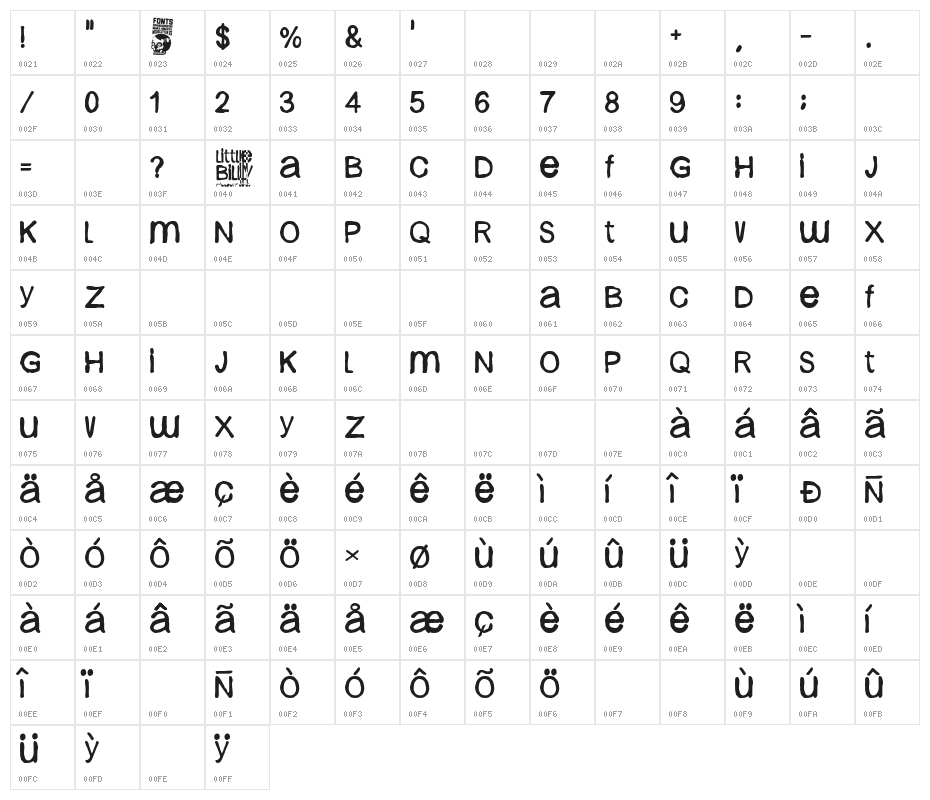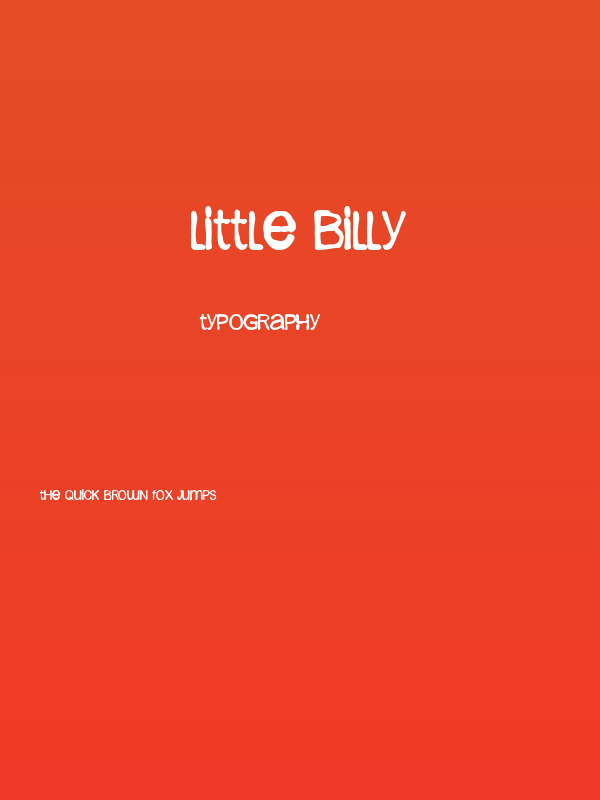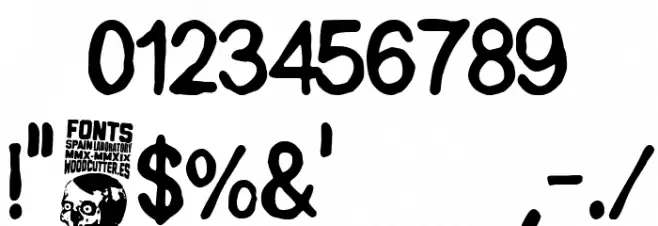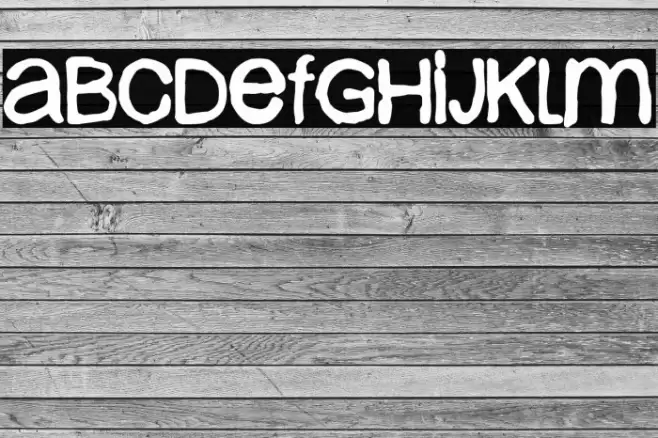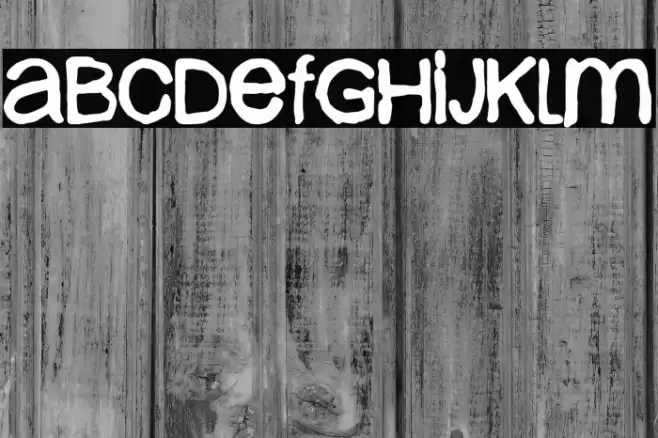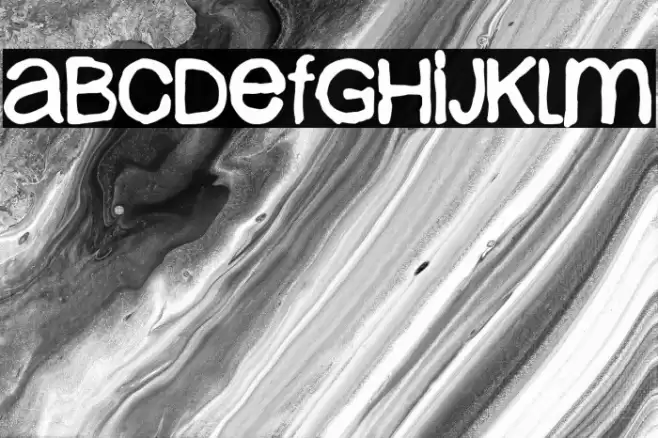
Little Billy Font
Little Billy Description
This font features a playful and informal style, characterized by its rounded and slightly irregular letterforms. The strokes are thick and consistent, giving it a bold appearance. The characters have a hand-drawn quality, with a whimsical and friendly vibe that makes it suitable for creative and casual applications. The font includes both uppercase and lowercase letters, numerals, and a selection of special characters. Its unique style is reminiscent of doodles or children's handwriting, making it ideal for projects that require a fun and approachable aesthetic.
| Proposed Projects | Ideal for children's books, playful branding, casual invitations, and creative posters. |